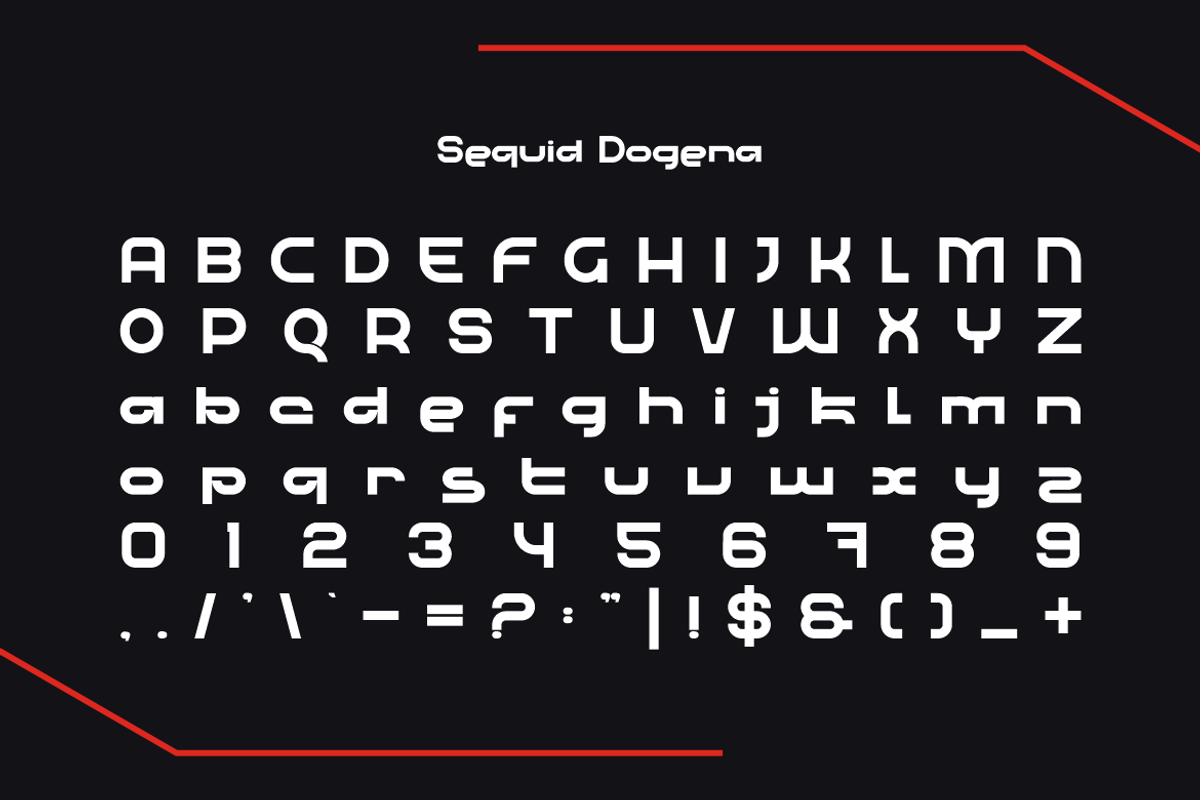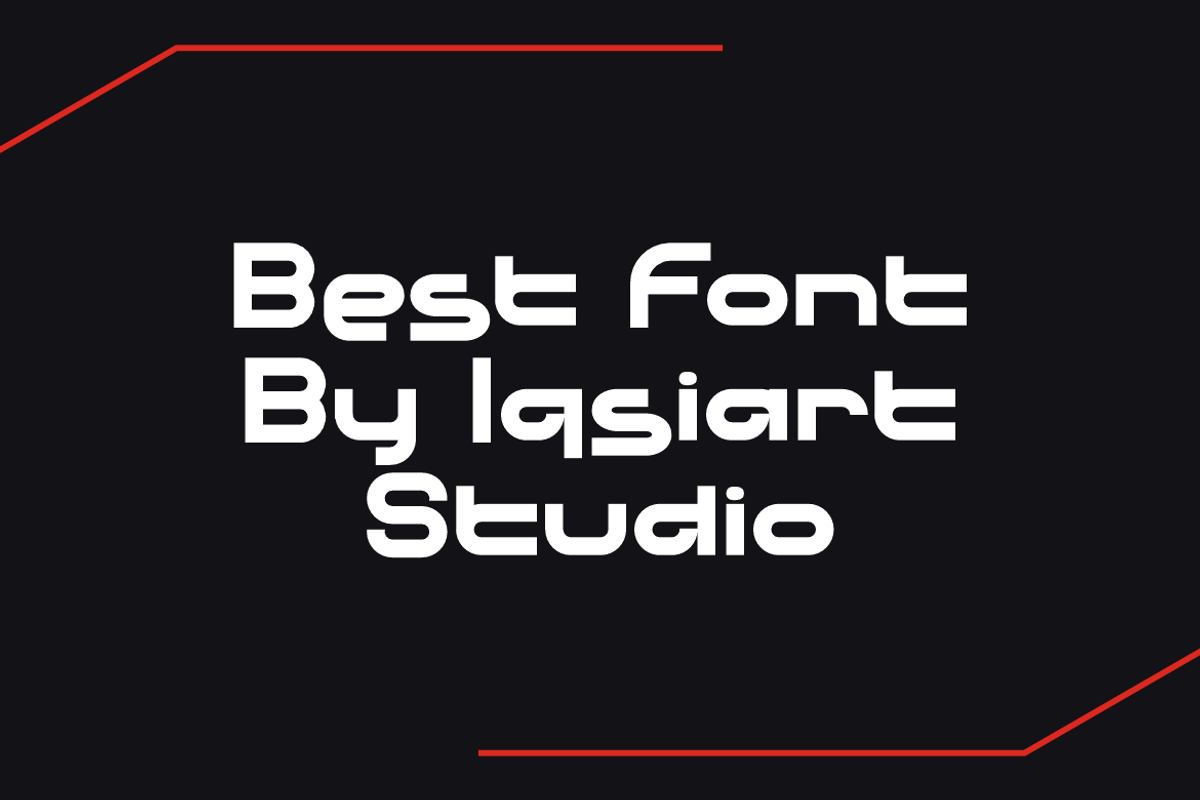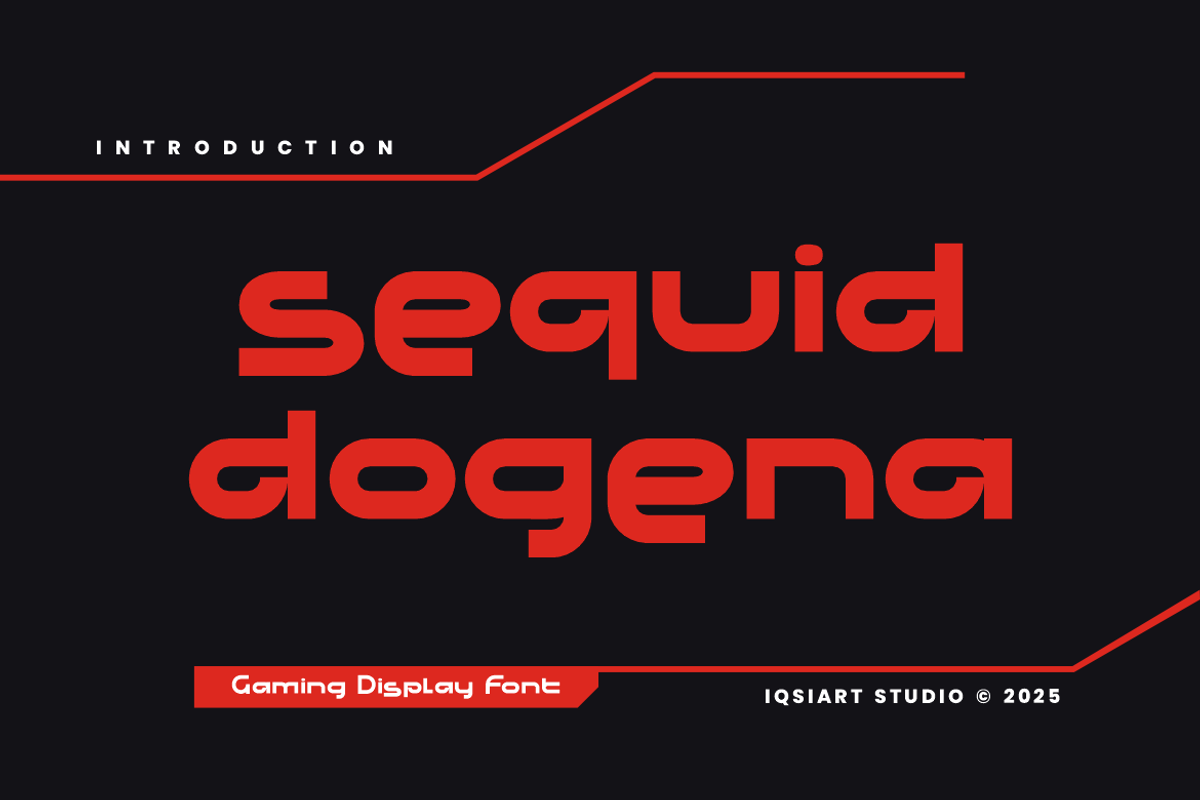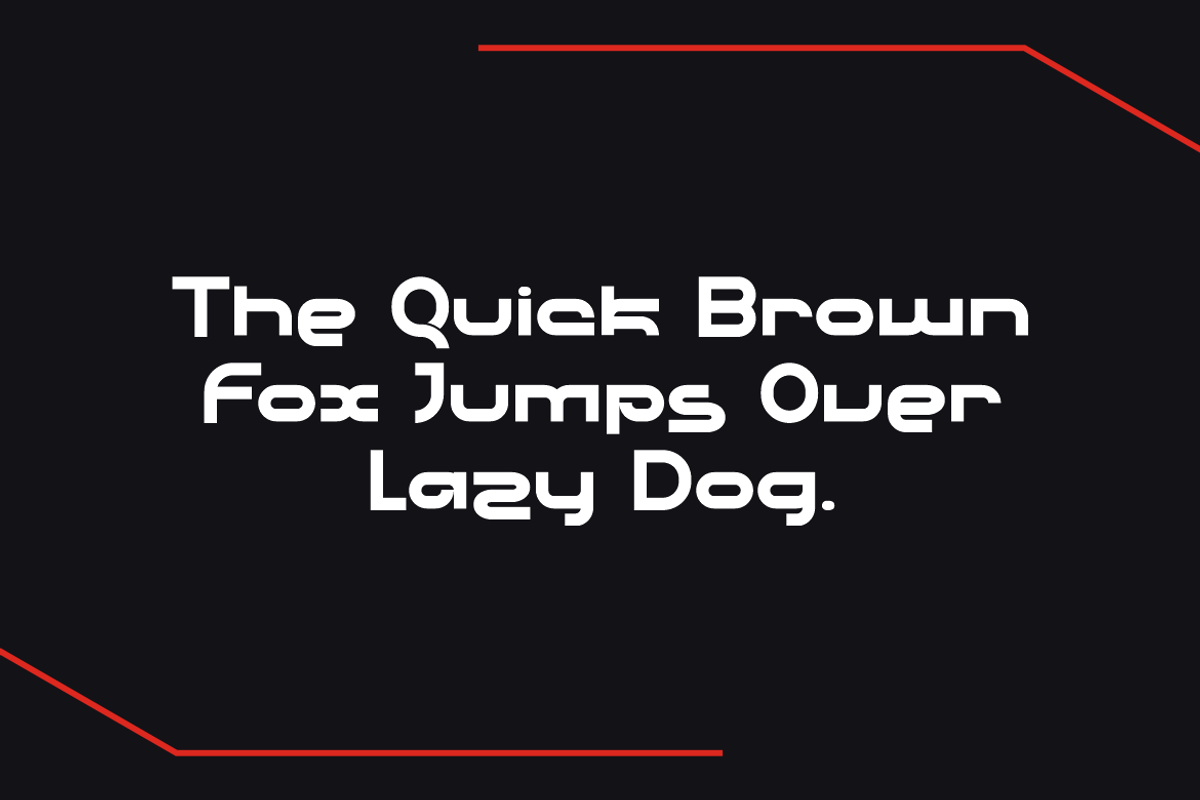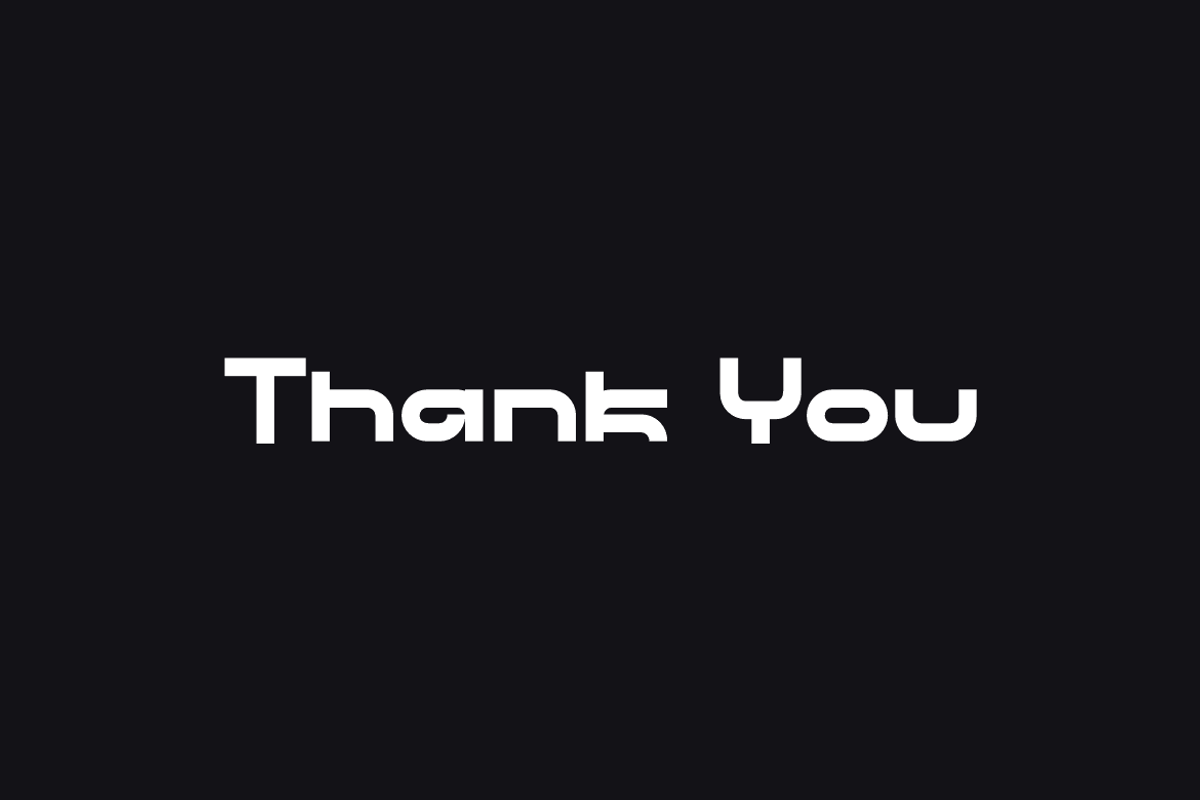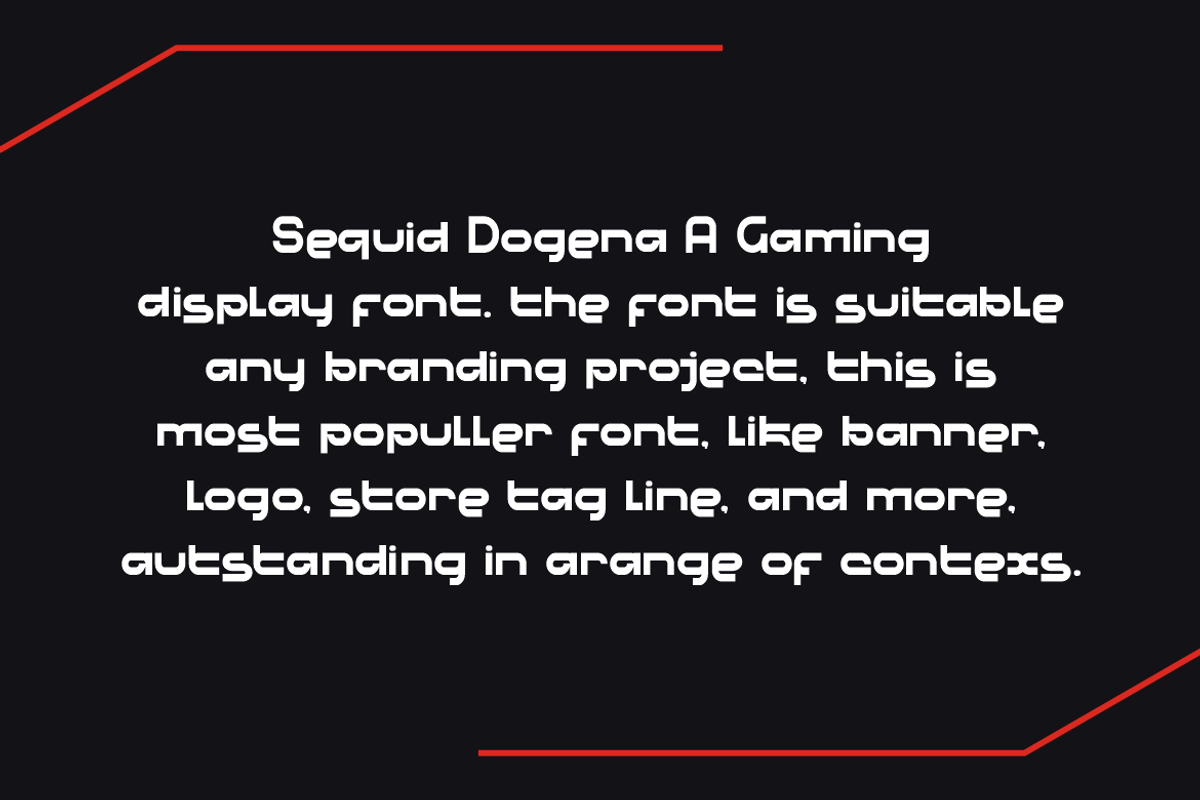
Sequid Dogena - Gaming Font
Sequid Dogena Font is a best and authentic display font. This font can be used for your various needs. We provide various themes and font styles. visit our profile to get a wide variety of themes and different font styles you need.